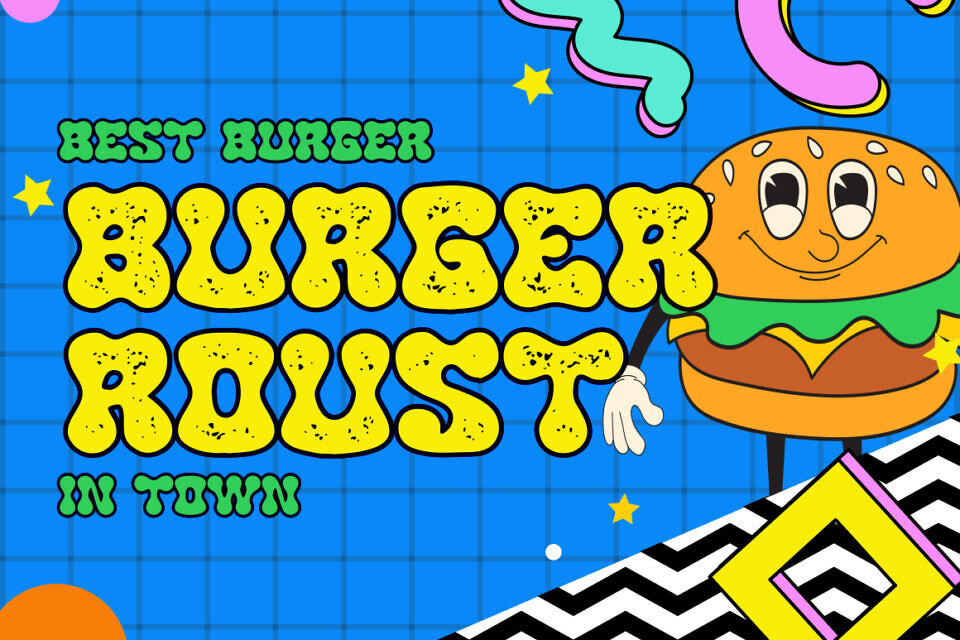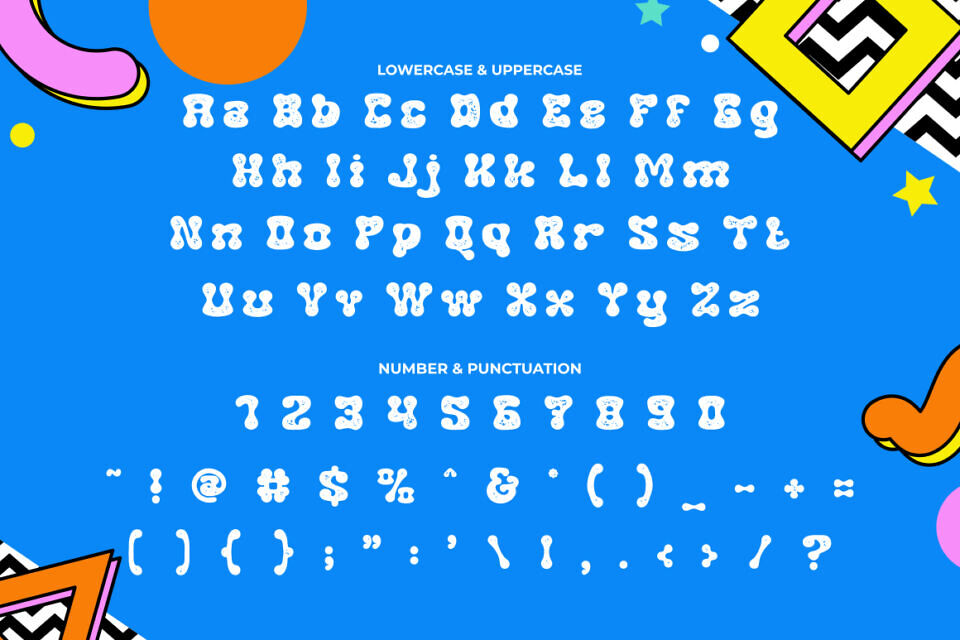
Funky Sign Font
Funky Sign – Groovy Hipster Font is a vibrant, retro-inspired display font with playful, colorful charm. Available in clean and textured/rough versions, it offers versatility for posters, logos, headlines, stickers, and branding.
Perfect for music-themed or funky projects, its pop and hipster styles bring nostalgia and dynamic flair. Whether crafting a trendy logo or an eye-catching landing page, Funky Sign infuses designs with authenticity and lively appeal, making them stand out with unique, retro vibes.